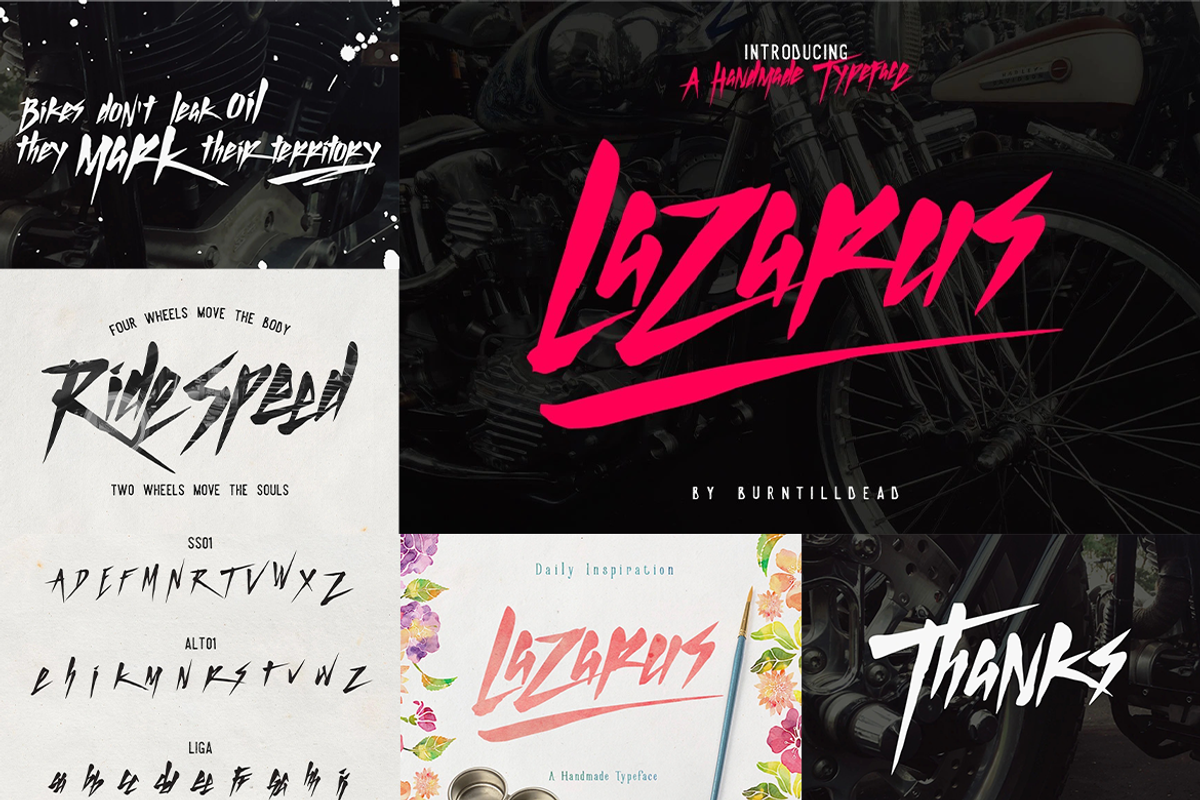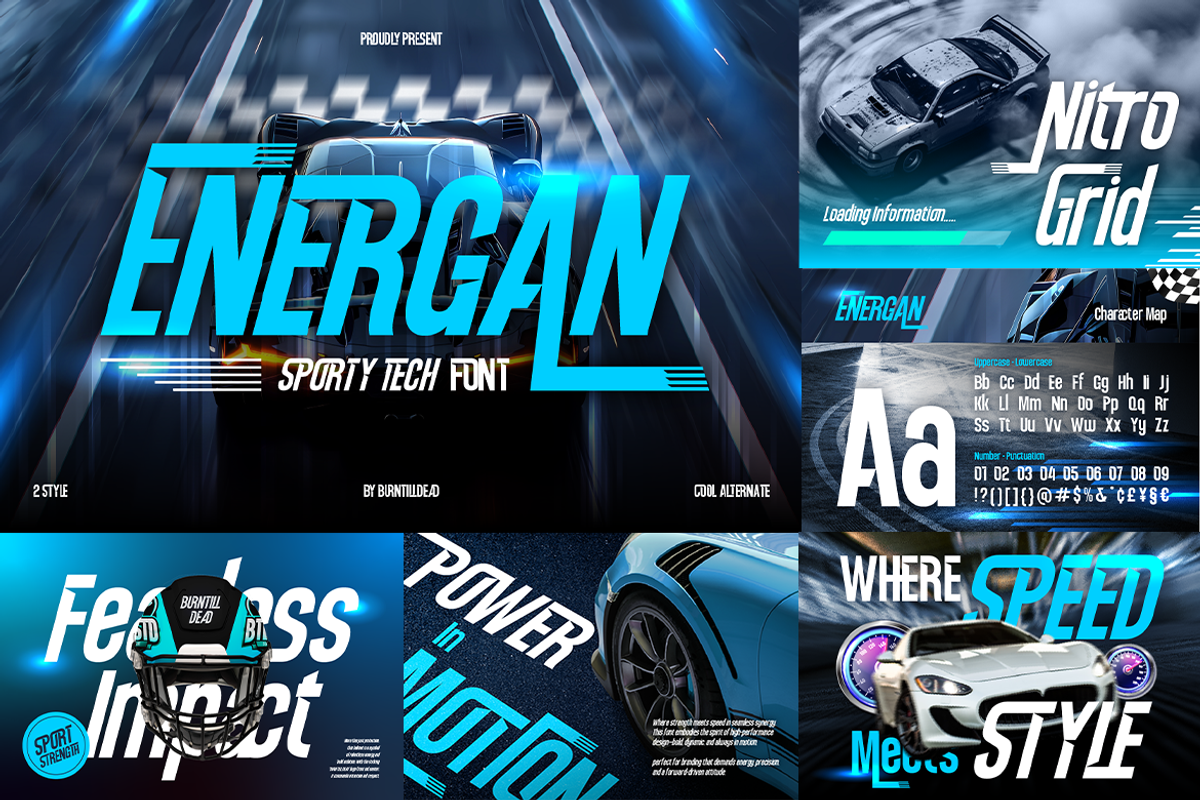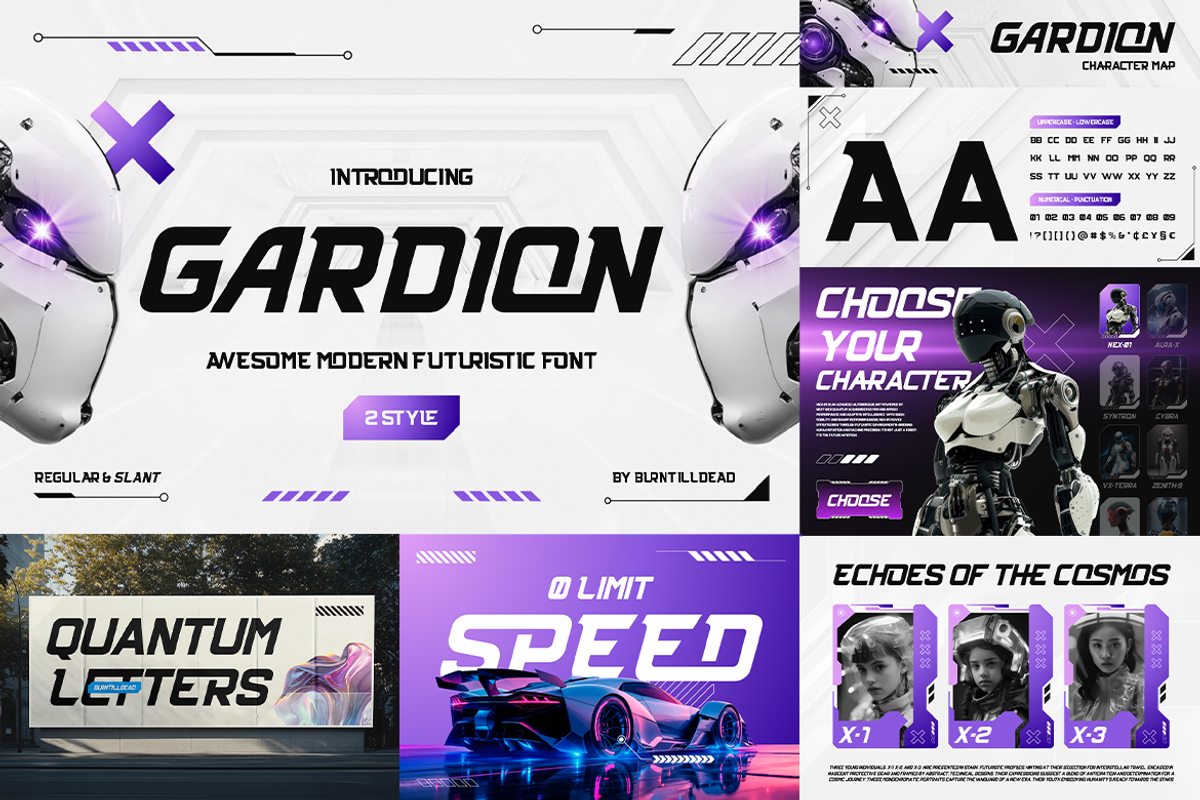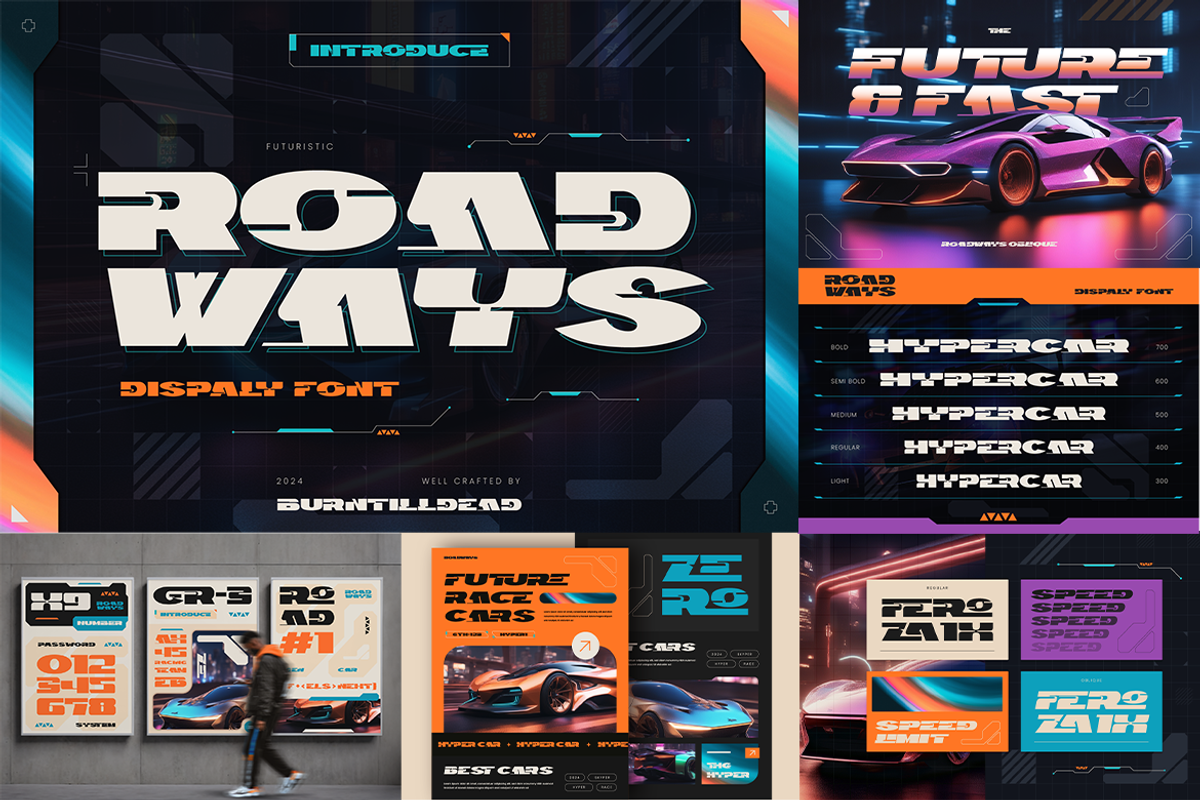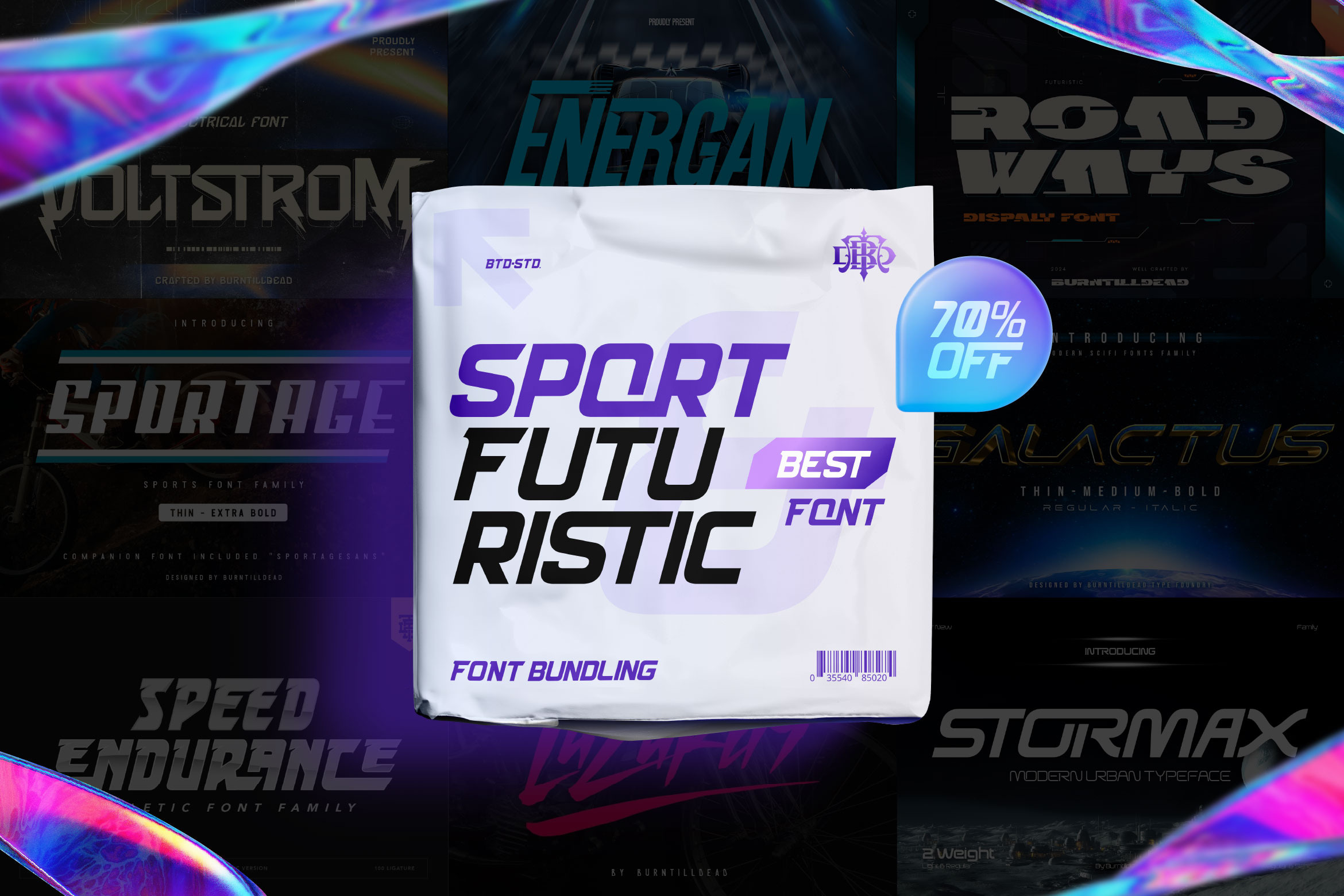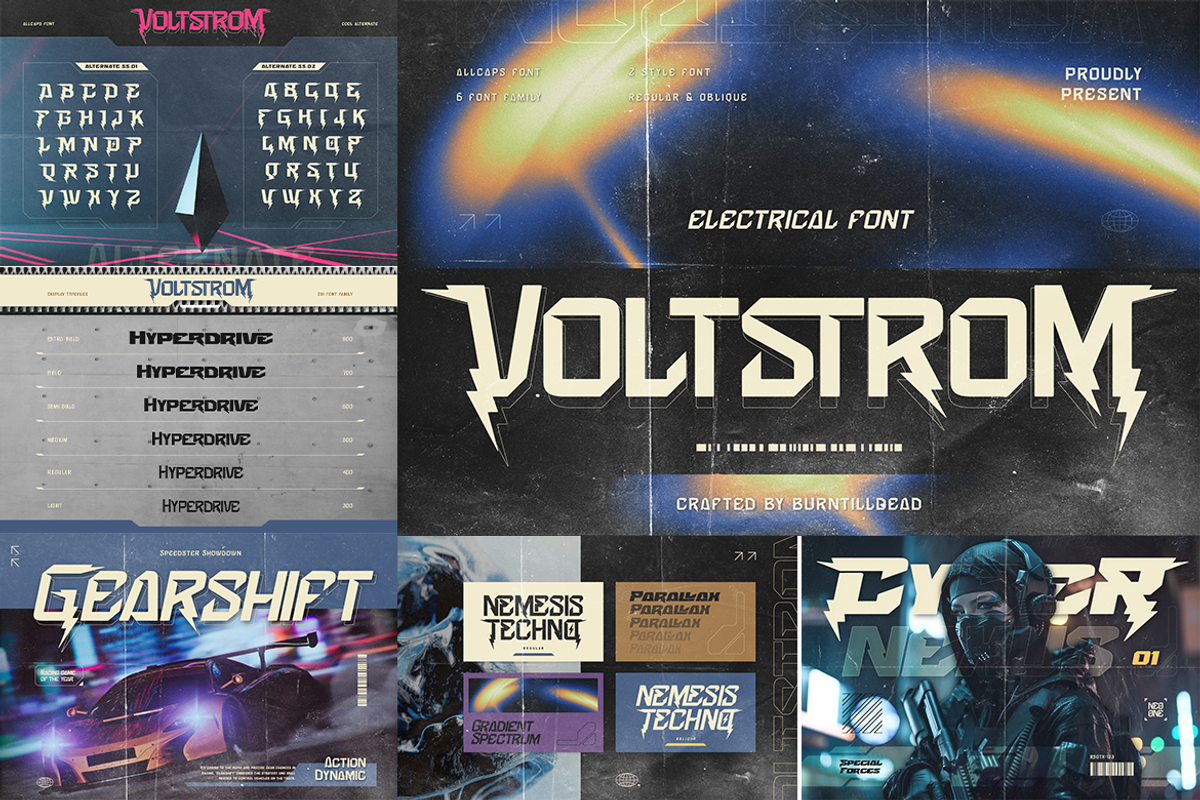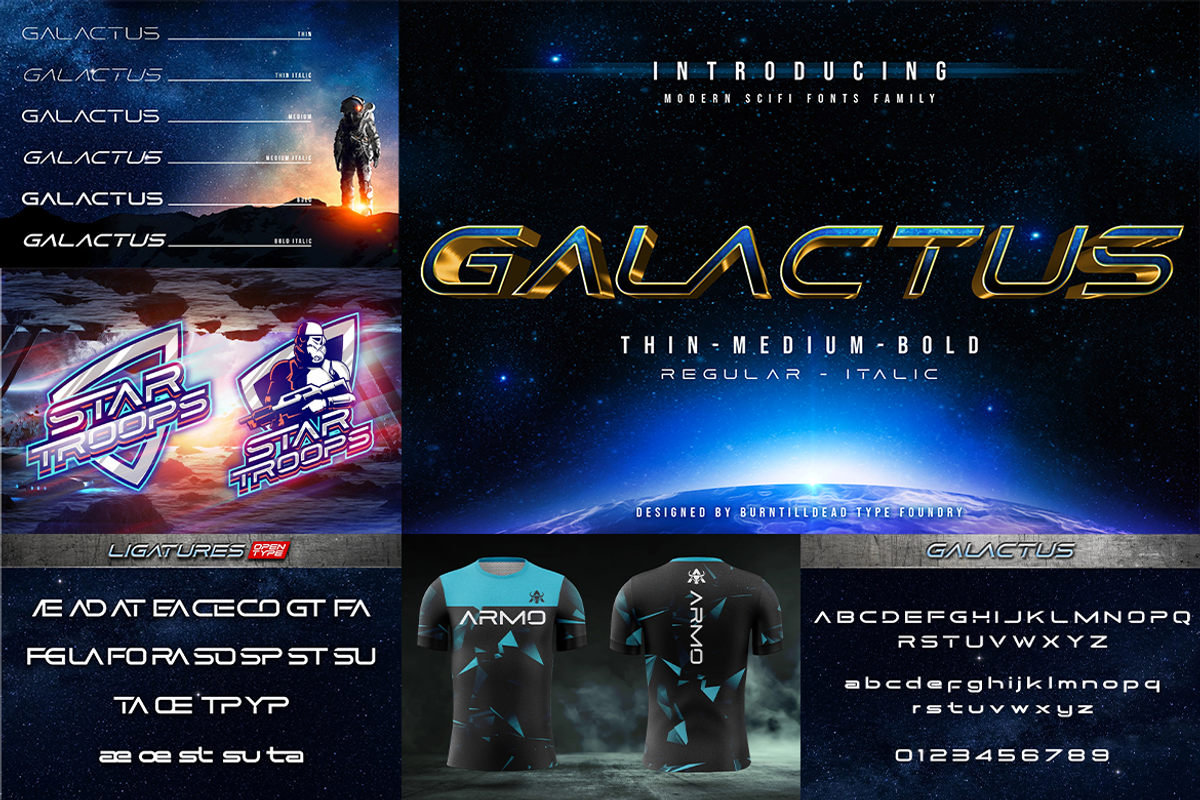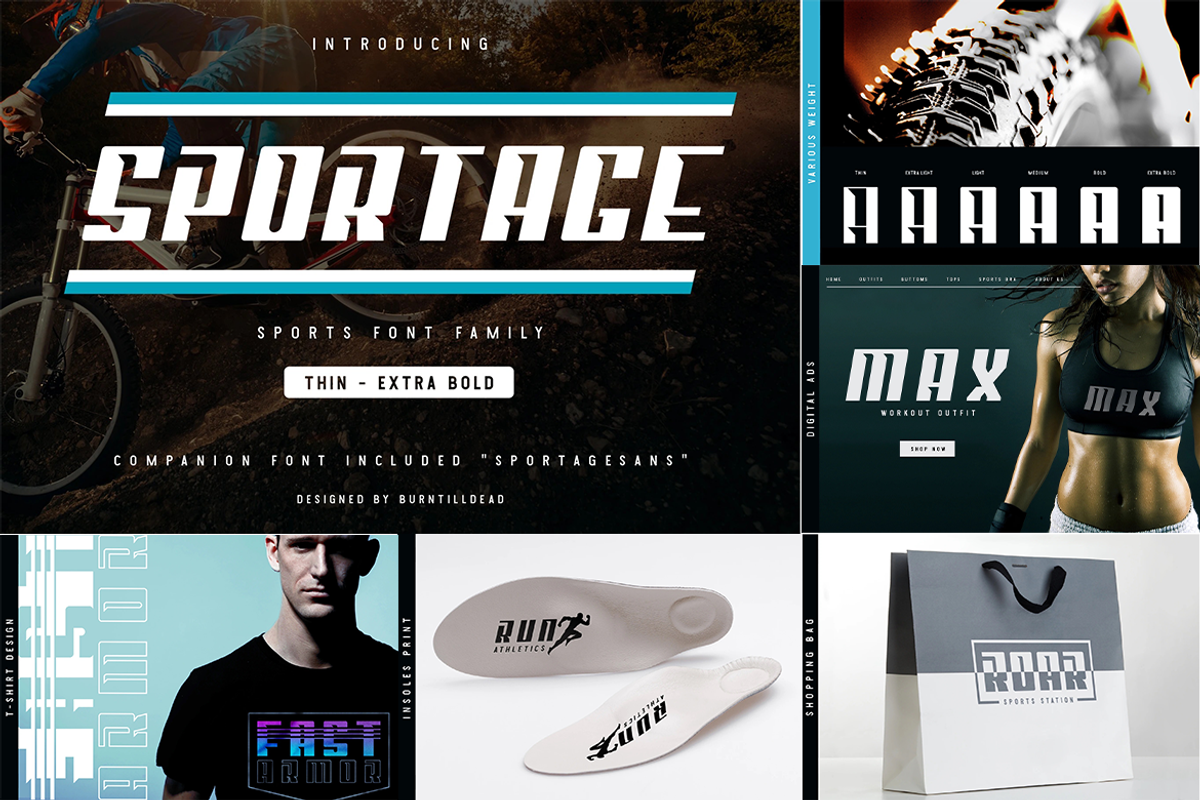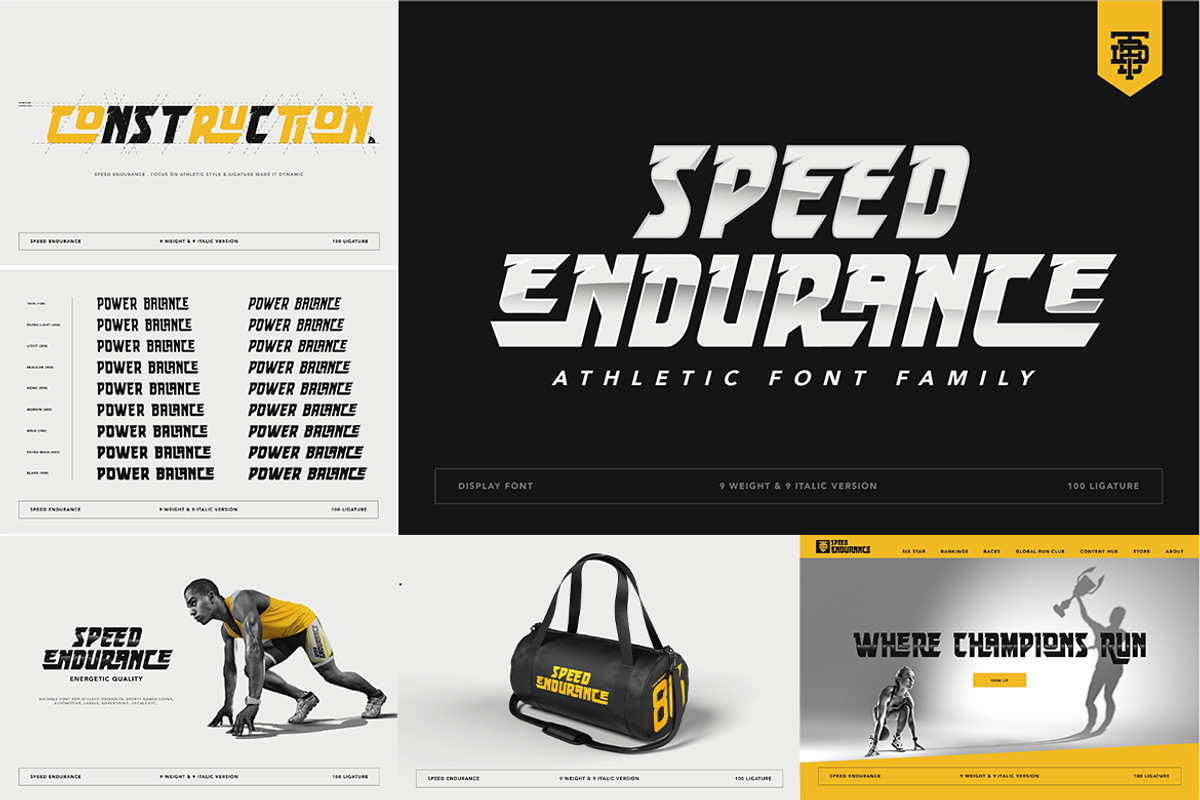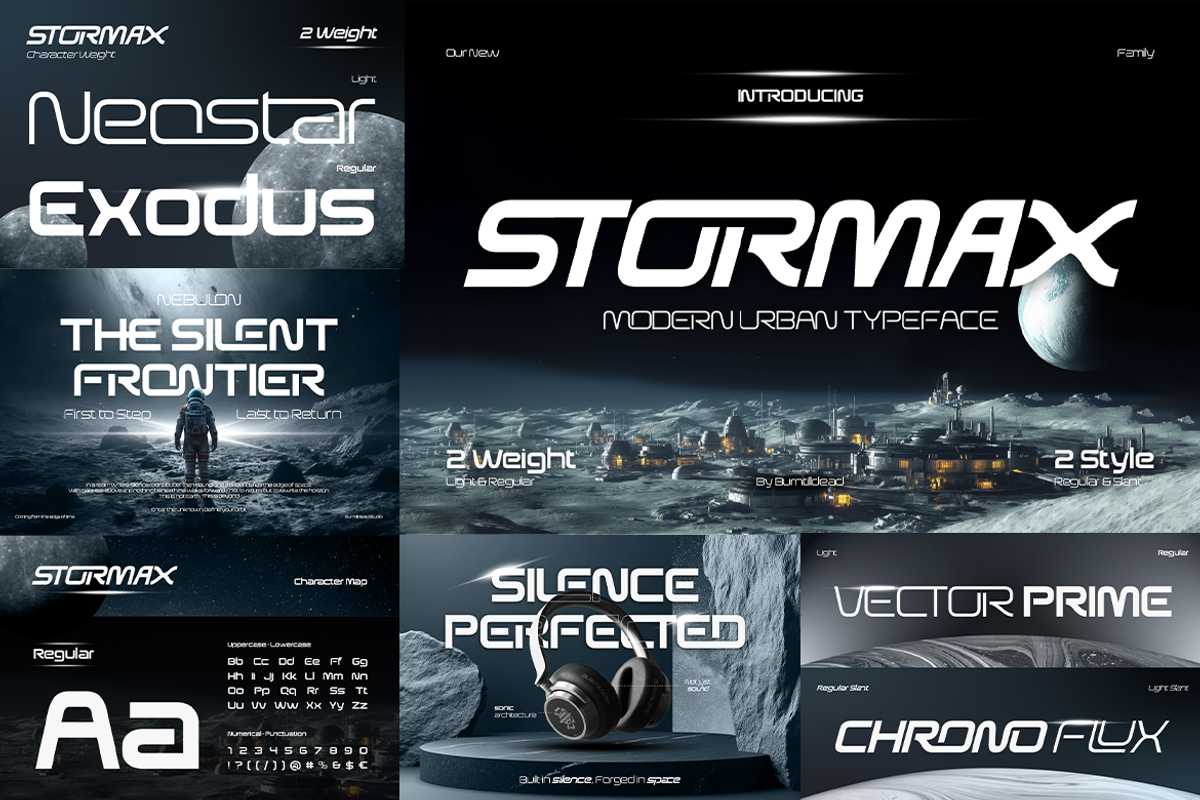
Futuristic Sport Font Bundle
Get 9 of our best sport & futuristic display fonts in one powerful bundle! Perfect for projects that demand speed, energy, and a high-tech vibe — from esports branding to athletic posters and tech-wear packaging. You’ve got nothing to lose by getting this font bundle—especially if you often design for sport or futuristic themes. One-time purchase, unlimited impact!
What’s Inside:
- Sportage – Weight Font
- Speed Endurance – Italic & Weight Font
- Energan – Slant & Regular Font
- Galactus – Weight Font
- Roadways – Weight Font
- Gardion – Slant & Regular Font
- Stormax – Slant & Weight Font
- Voltstrom – Oblique & Weight Font
- Lazarus – Regular & Swash
Whether you’re designing for sport brands, racing events, or futuristic interfaces, this bundle has everything you need to stand out with confidence.